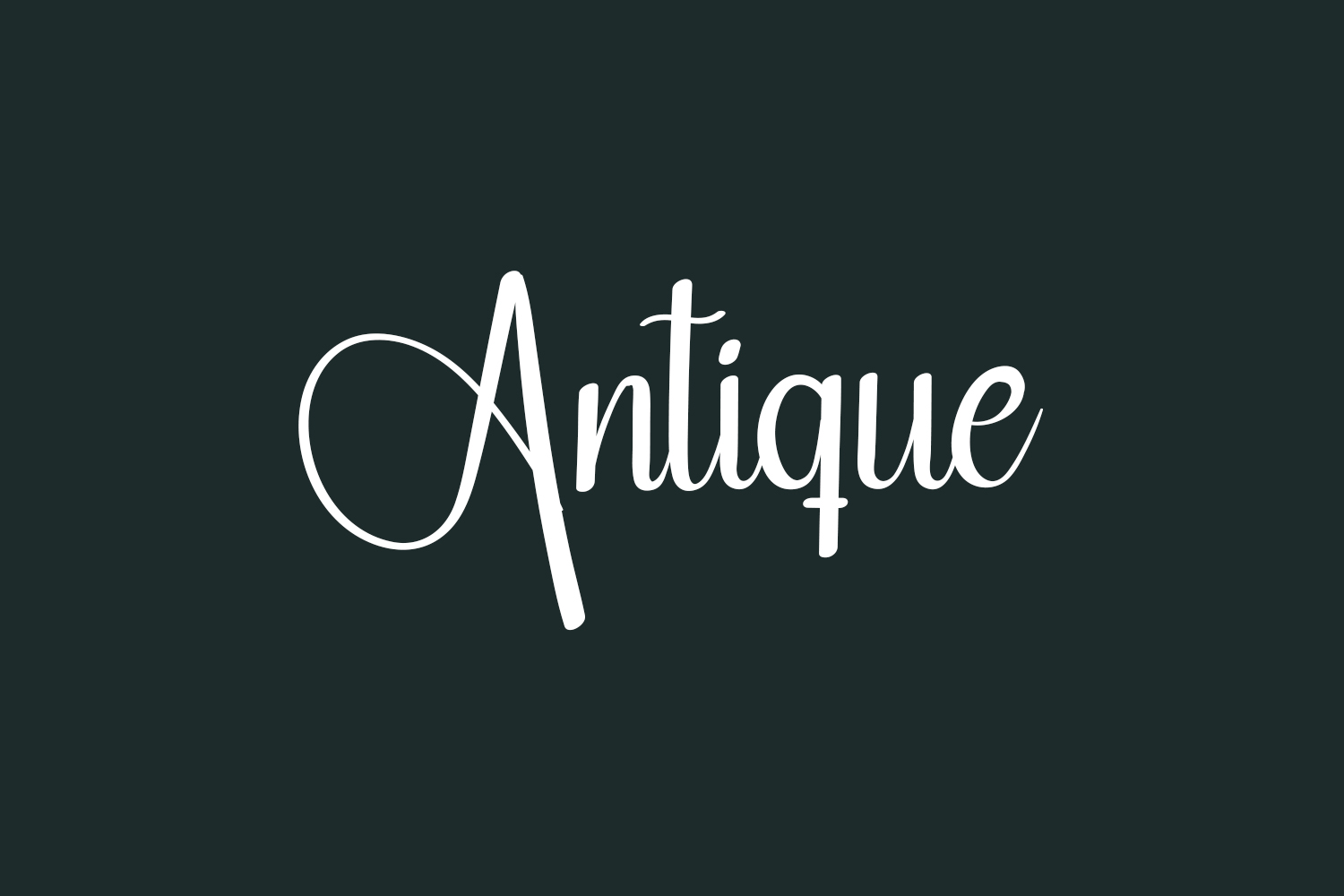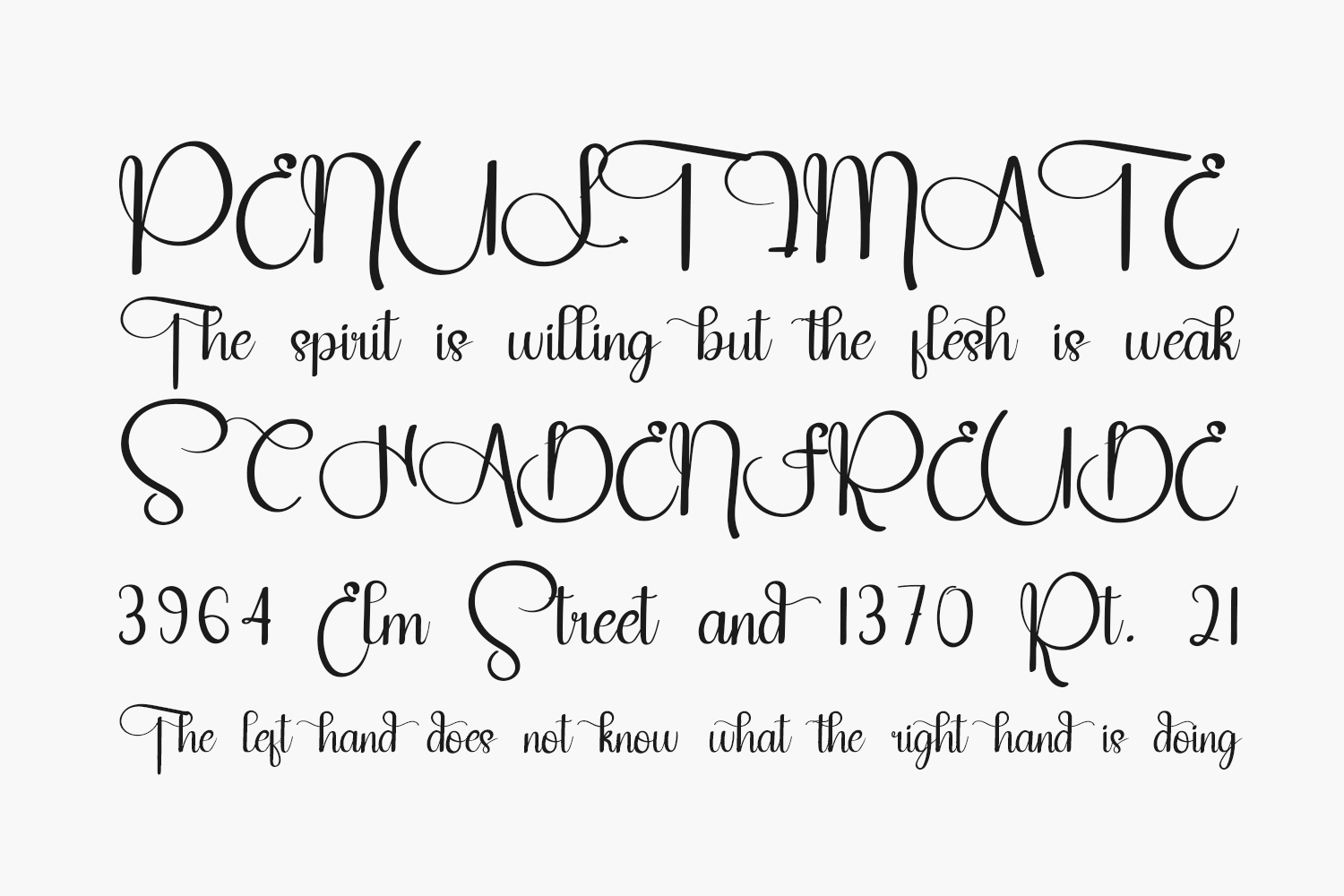
Antique Free Font is a charming and adaptable handwritten font distinguished by its individuality and remarkable influence. This font is designed to infuse a delightful touch into your upcoming design or creative endeavors, enhancing their overall appeal. Antique Free Font is free for personal use only. Please purchase the full version for commercial use.
Designed by PiPi Creative